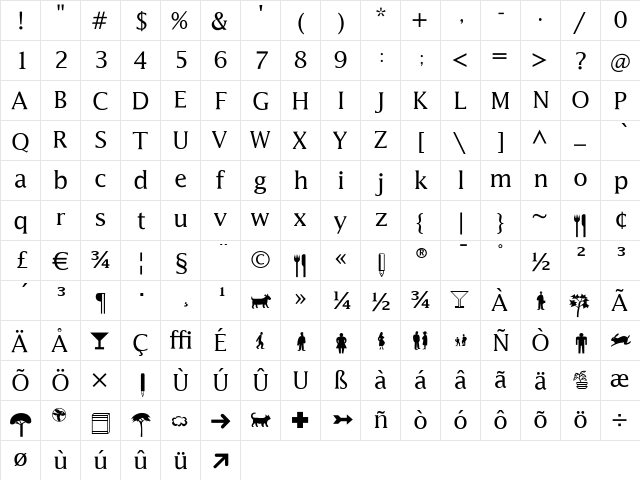
Latine Regular Font Preview
Latine Regular
Latine Regular Font Details
Design Context for Latine Typeface
Latine is a composed and adaptable typeface that performs quietly and consistently across a wide range of design contexts.
Pro Tip: Use Latine in both headline and body roles to test its range before committing to a single application.